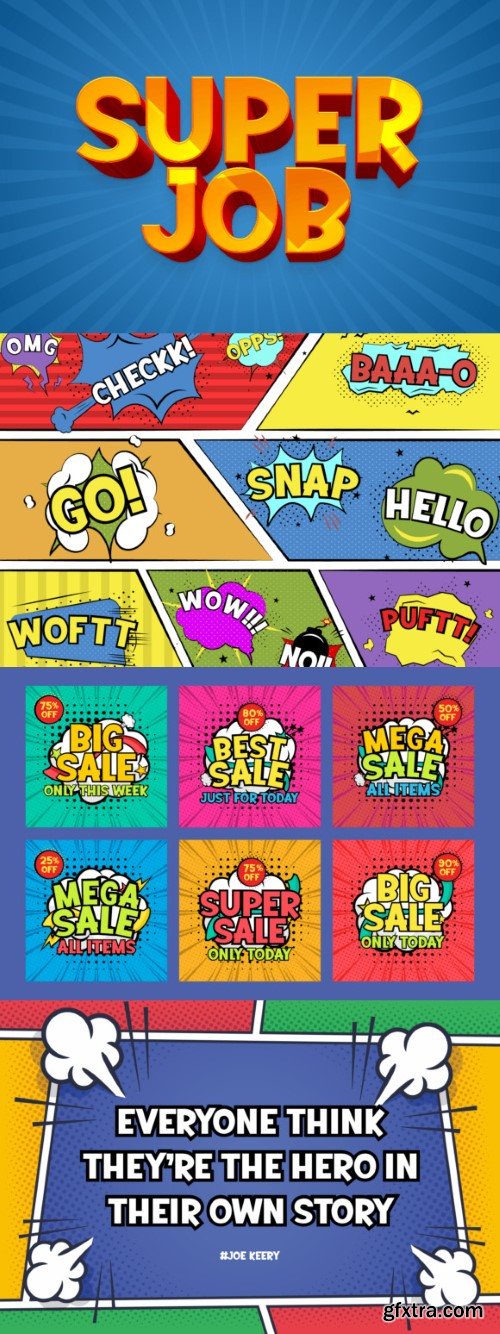
Super Job is a bold and beautiful display font. Make your typography designs stand out with this simple but captivating font. It is perfect for various projects such as advertising materials, comic books, product packaging, posters, banners, flyers, websites, titles, and more.